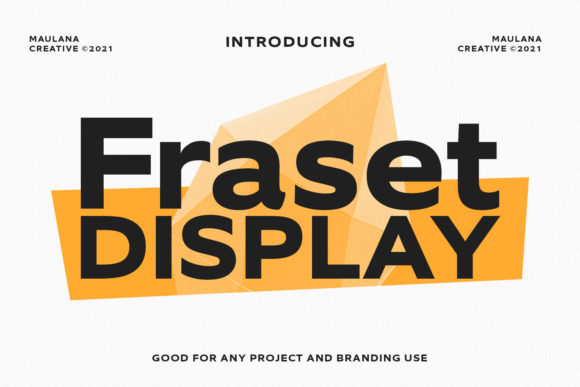
Behold the Splendor of Fraset Display Font: A Stroke of Boldness, a Symphony of Elegance!
In the realm of typography, Fraset Display Font stands tall, a beacon of modernity, a testament to the power of bold strokes and playful characters. It's a font that dances on the page, captivating the eyes with its unique ligatures and captivating rhythm.
With Fraset Display Font, your designs will transcend the ordinary, soaring to new heights of creativity and expression. Its bold lines command attention, while its graceful curves add a touch of sophistication, creating a visual symphony that resonates with both power and elegance.
Tailored for the Discerning Eye:
Fraset Display Font is not just another font; it's an experience, a journey through the realm of visual aesthetics. Its carefully crafted characters exude personality, inviting you to explore the depths of creativity and discover new possibilities.
Whether you're a seasoned designer or just starting your creative journey, Fraset Display Font is your perfect companion. Its versatility knows no bounds, adapting seamlessly to a wide range of design projects, from striking logos and captivating social media posts to eye-catching movie titles and thought-provoking book covers.
Unleash Your Creative Potential:
With Fraset Display Font, the possibilities are boundless. Whether you're working on short, impactful texts or longer, flowing narratives, this font will elevate your words, infusing them with a sense of dynamism and energy. Its bold strokes demand attention, while its playful characters add a touch of whimsy, ensuring that your message leaves a lasting impression.
Step into the Spotlight with Fraset Display Font:
In the competitive world of design, standing out is crucial. Fraset Display Font is your secret weapon, the tool that will set your work apart from the crowd. Its bold personality and captivating charm will turn heads and leave a lasting impression, ensuring that your designs shine brighter than ever before.
So, embrace the allure of Fraset Display Font, let your creativity soar, and embark on a journey of visual storytelling that will leave your audience spellbound. Experience the magic of fonts and unlock the door to a world of endless possibilities.